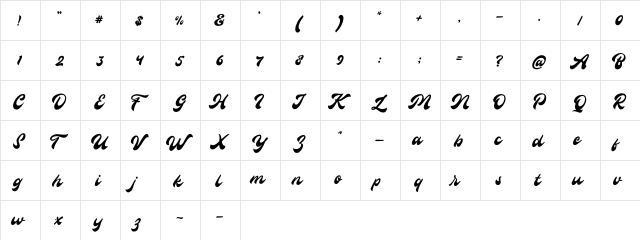
Antique Cable Regular
| Designer | Ade Santani |
Design Context for Antique Cable Typeface
Antique Cable has the warm character of retro typography — evoking diners, record sleeves, and the golden age of print advertising.
Font Pairing: Combine Antique Cable with a simple slab or neutral sans — period-accurate companions reinforce the vintage feel without competing for attention.
Pro Tip: Lean into Antique Cable's period character by pairing it with aged paper textures, muted colour palettes, and vintage illustration styles.